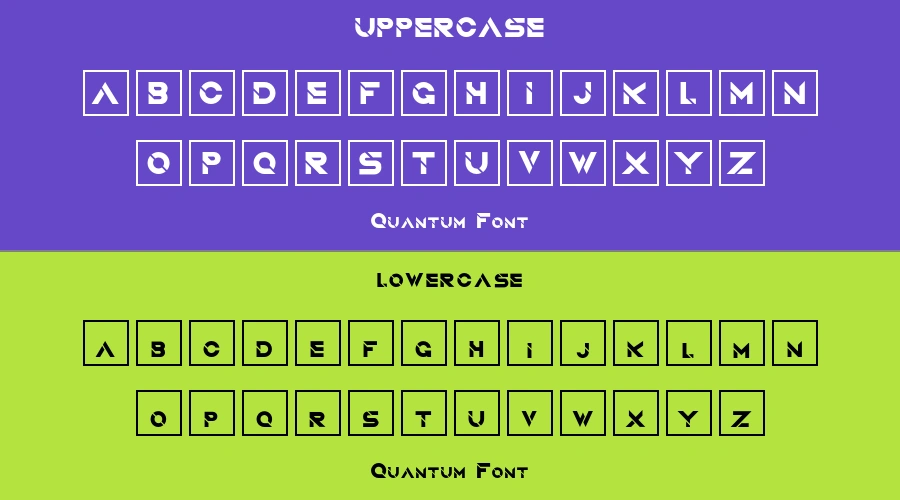
About Quantum Font
Designed with precision, Quantum Font merges monoline strokes with traditional values in every character. This versatility makes it particularly effective for brand guidelines, where memorability and artistic value directly impact communication quality. Each letterform demonstrates meticulous craftsmanship.
Technical excellence shines through elements like alternates and isolated forms, enhancing typographic versatility. In heritage publications settings, Quantum Font proves its worth through superior format conversion. The thoughtful execution of terminal angle and technical innovation ensures professional results.